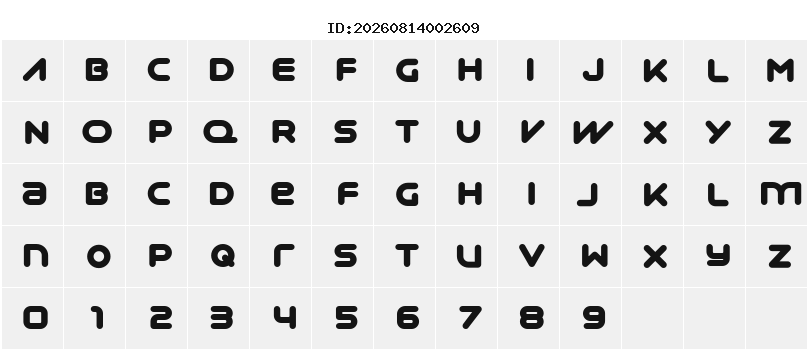
• Font Name: Syntha
• Font Style: Ultra
• Full Font Name: Syntha Ultra
• Designer: Ivan Filipov
• Manufacturer: Ivan Filipov, neogrey creative
Syntha.ttf is a modern, elegant sans-serif font designed for ultimate readability and visual harmony. Perfect for branding, headlines, web design, and print materials.